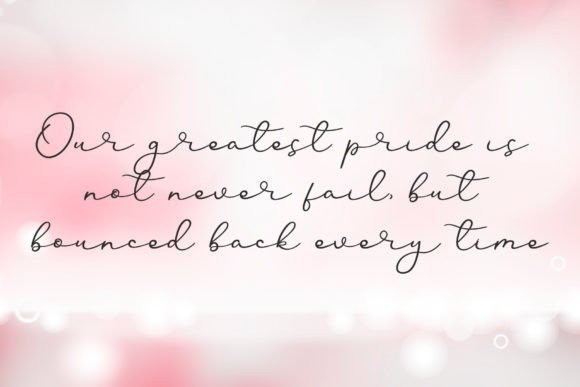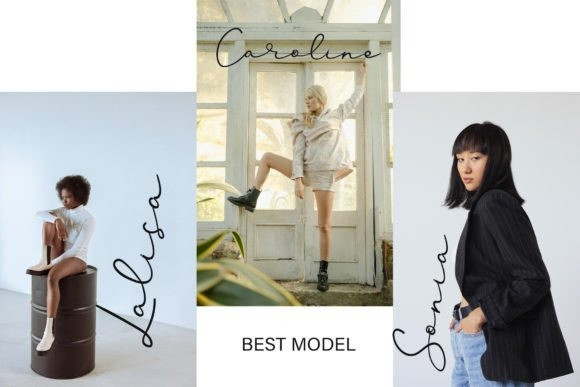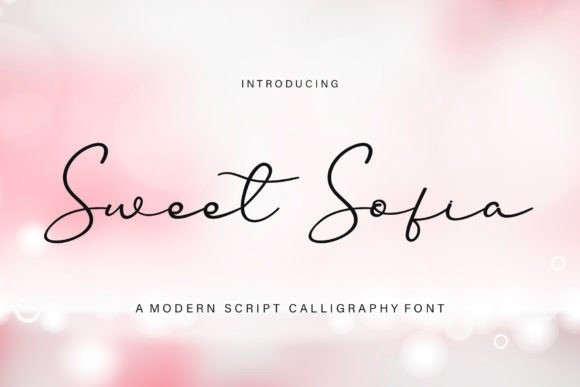
Sweet Sofia Font
Sweet Sofia Font is a sweet and friendly handwritten font. Fresh and neat, this font is ideal for writing wedding invitations, cards, or any other design that might need a fun touch!